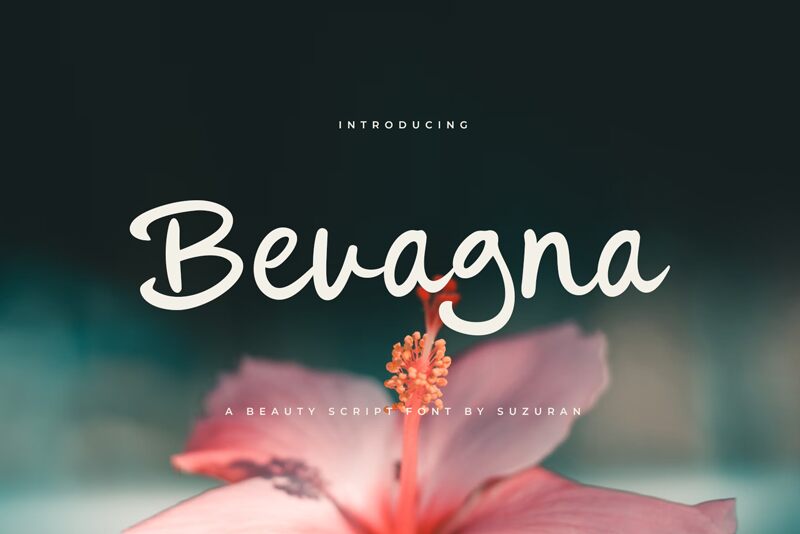
Bevagna font family by Khurasan™ is a free handwritten font family in 2 font styles. The letter shapes are smooth and flowing, with a natural handwriting style. They are relaxed, contemporary, elegant, and inviting. As you type, your information will look more dynamic, approachable, and engaging. Many characters have script-styled connections that give them a cursive style. The font is perfect for modern-day branding work or intimate invitations.
Bevagna can be used for creative art and design in both print and digital applications. The font family will add a special touch to your branding, identity, and packaging design projects. It’s also suitable for decoration, posters, magazines, book covers, and stationery. Digital uses include UX/UI, apps, websites, social media, and ads.